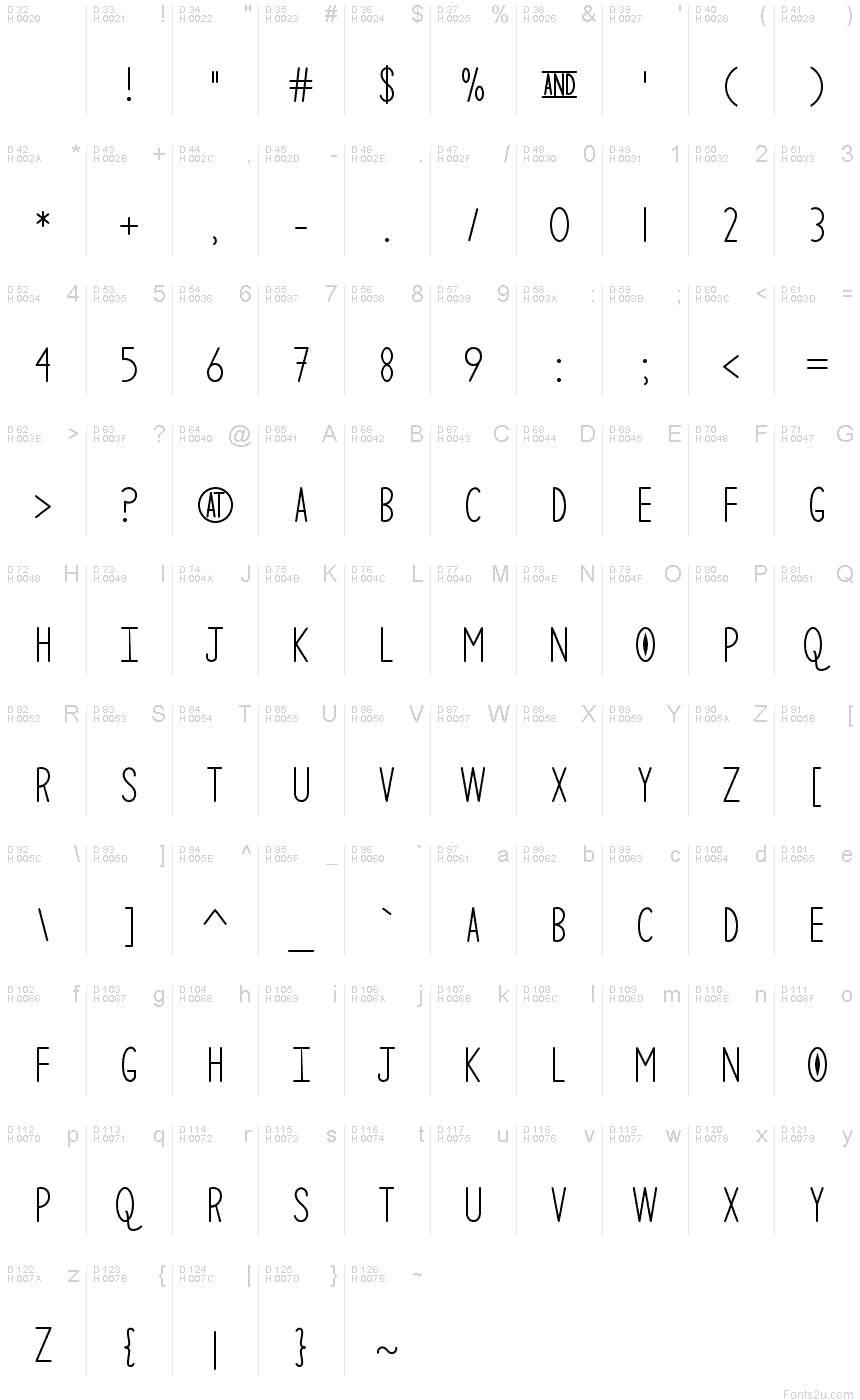
The Curious Cat by Misti's Fonts is a free decorative display font with extremely tall, narrow letters, varying widths, and a light, wiry stroke. Its uneven proportions, softly rounded ends, and occasional swelling curves give the alphabet a gently offbeat look, especially in the broader circular forms.
Children's publishing is its clearest home, where the lanky shapes can turn a book title into part of the story's cast. The same curious silhouette suits animal-themed packaging, classroom posters, and playful event graphics. Across these settings, the stretched lettering suggests characters peering, bending, and gathering together rather than ordinary type on the page.